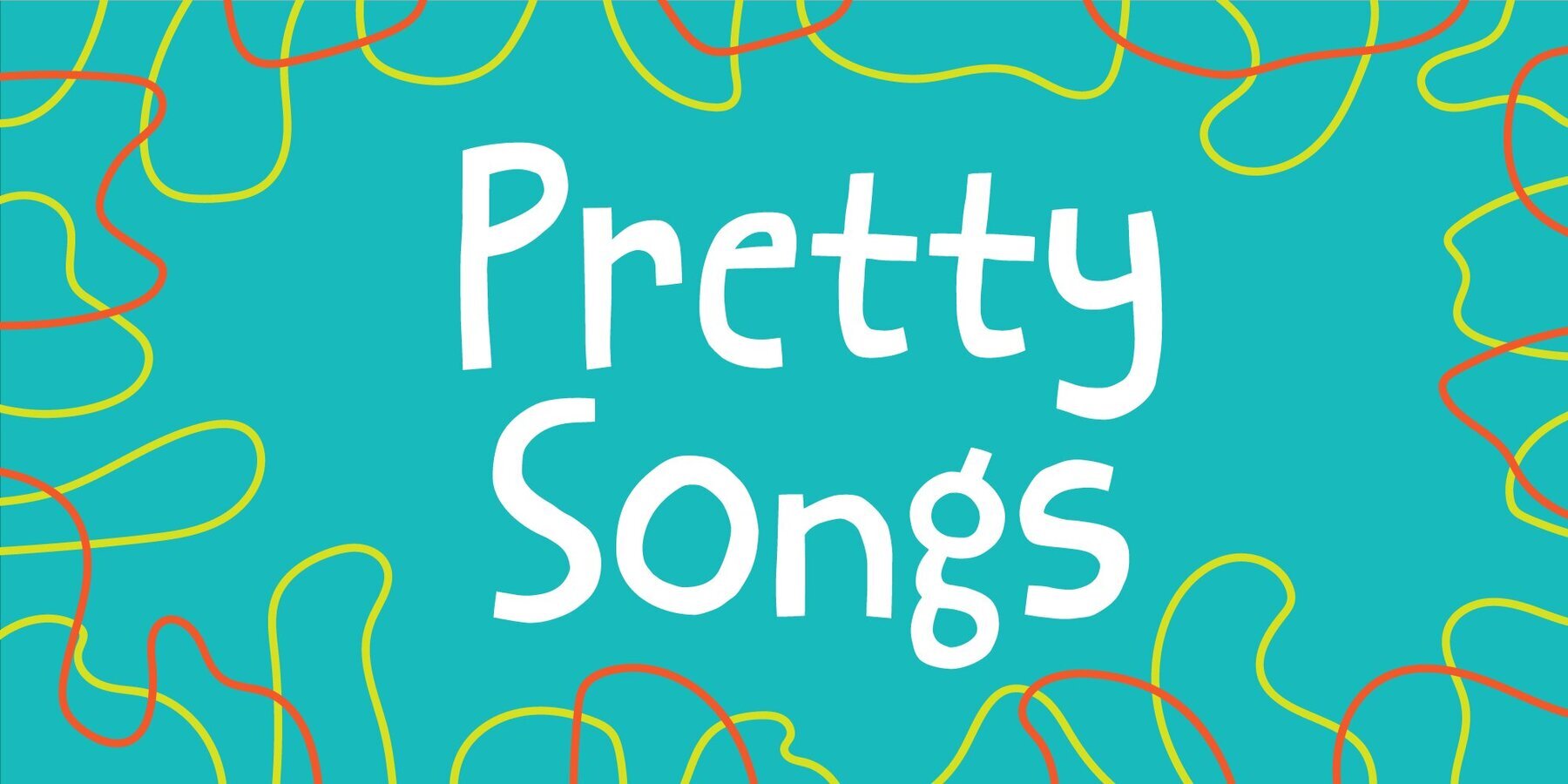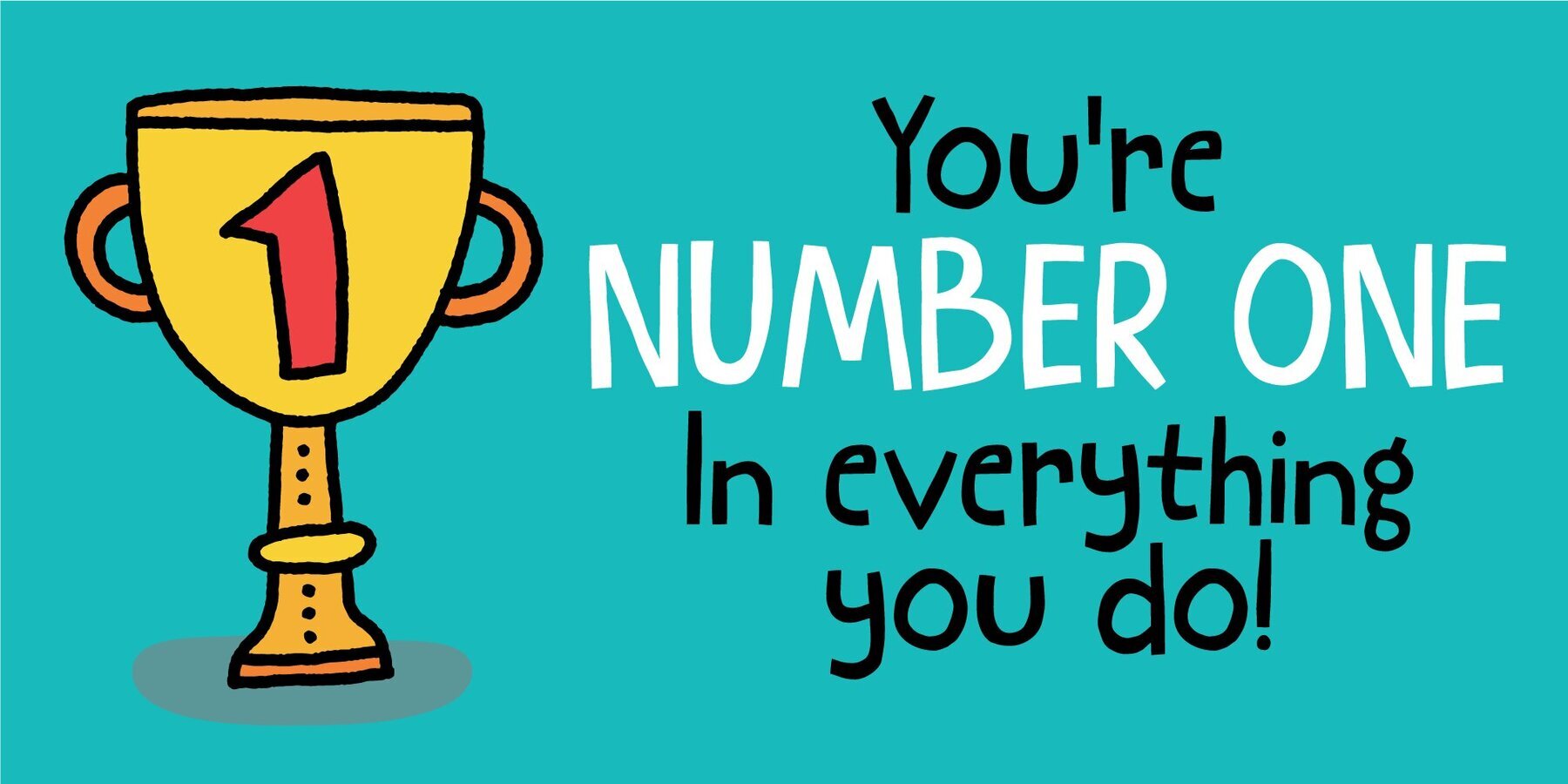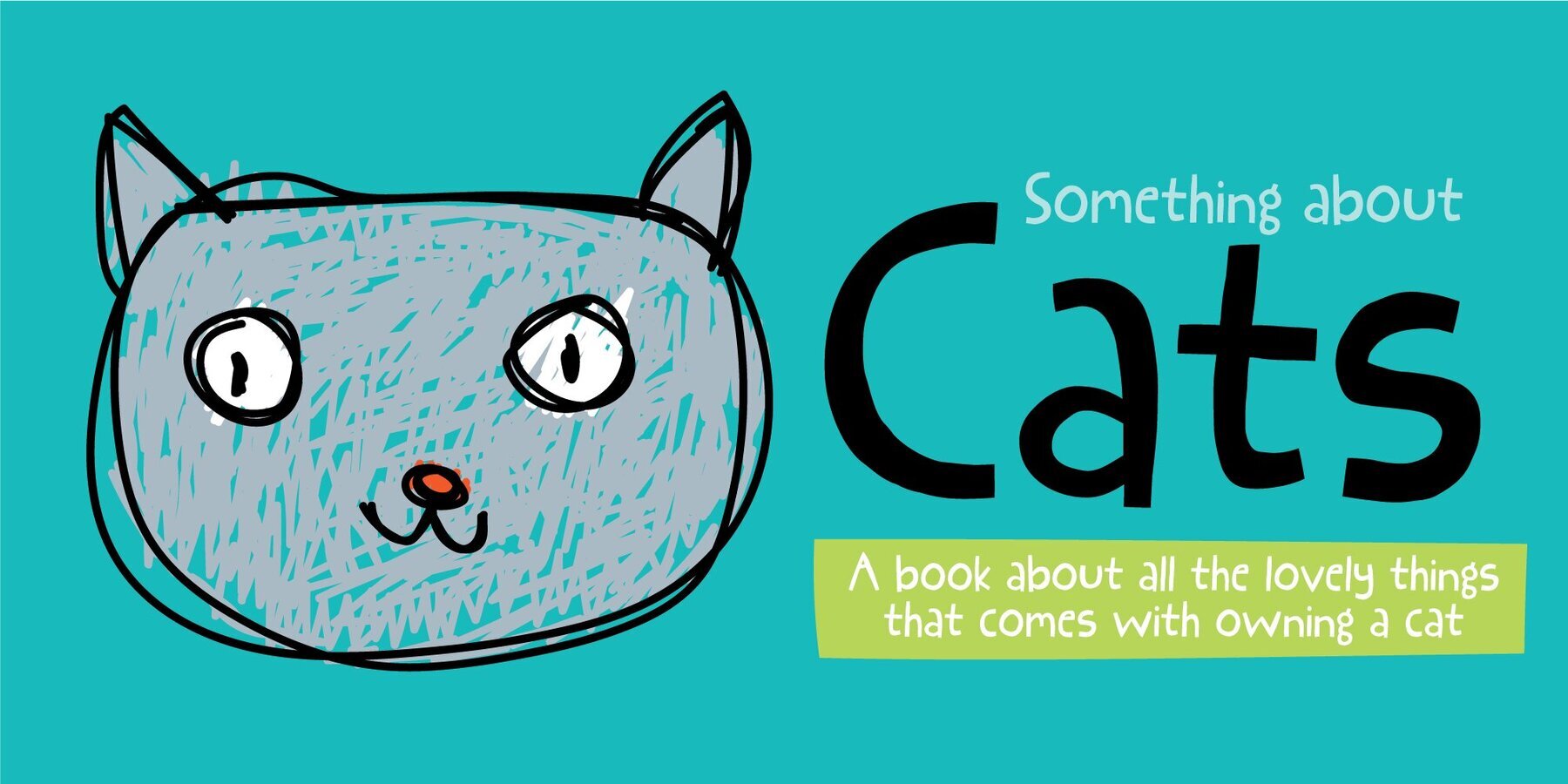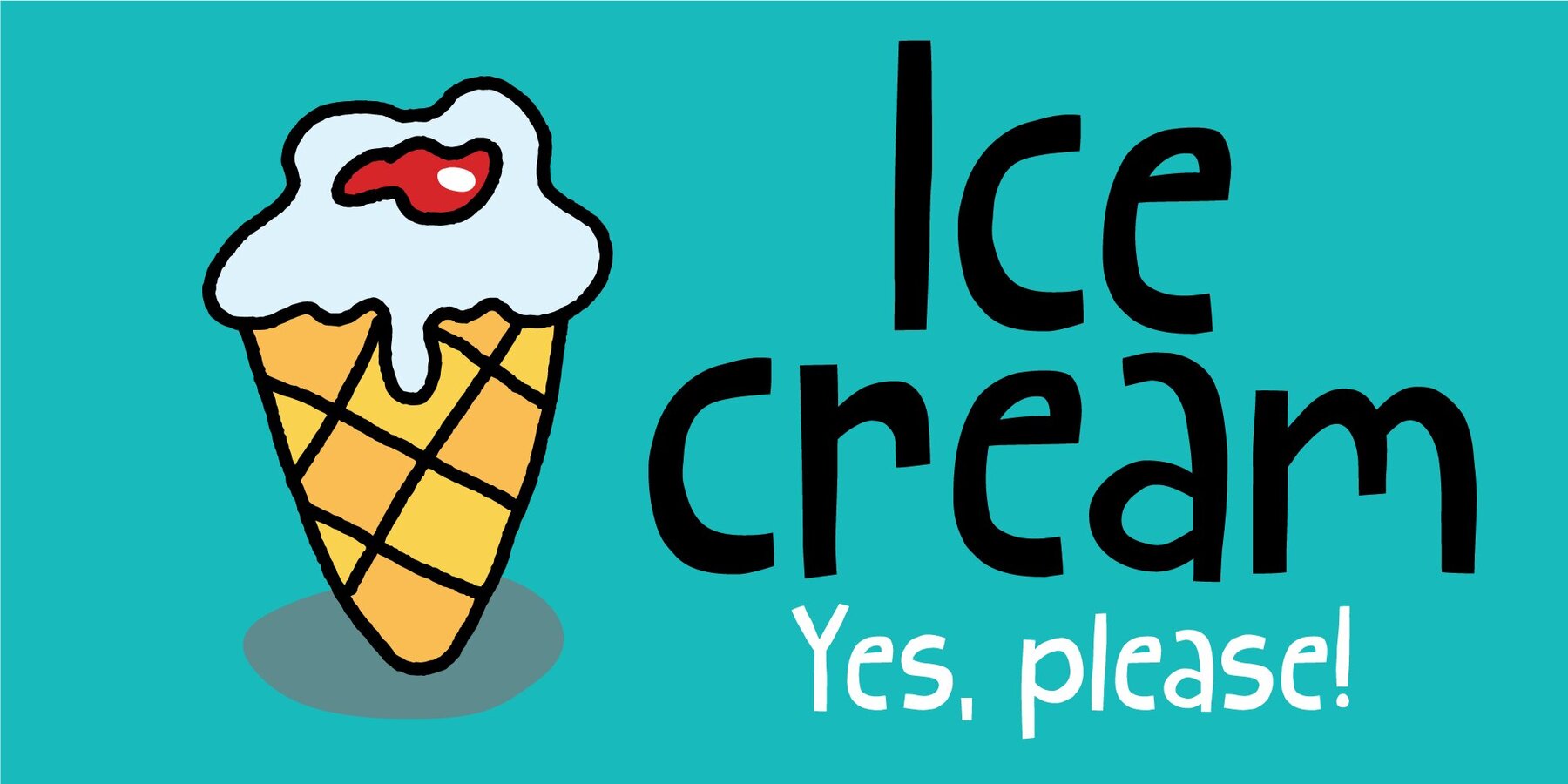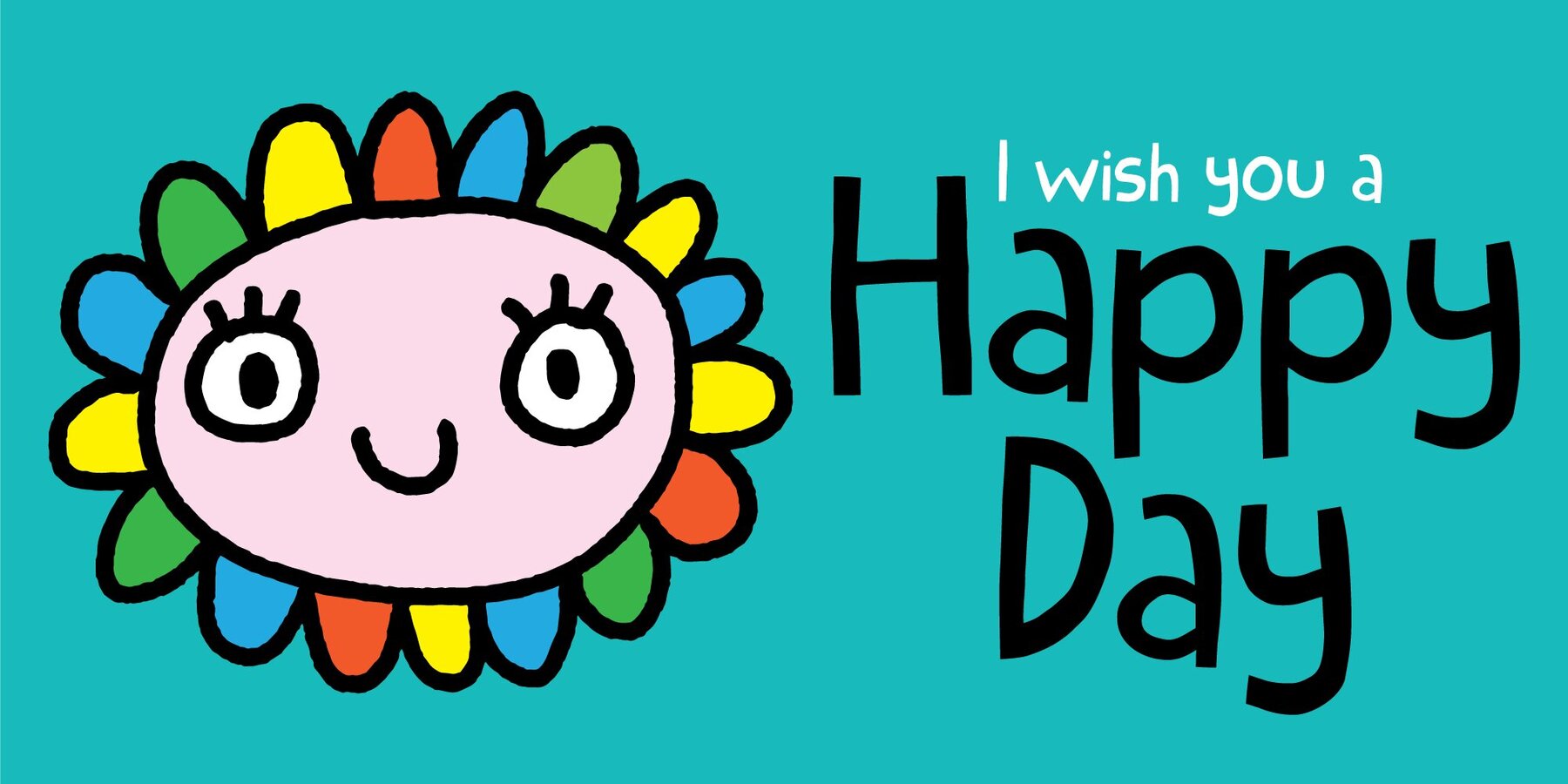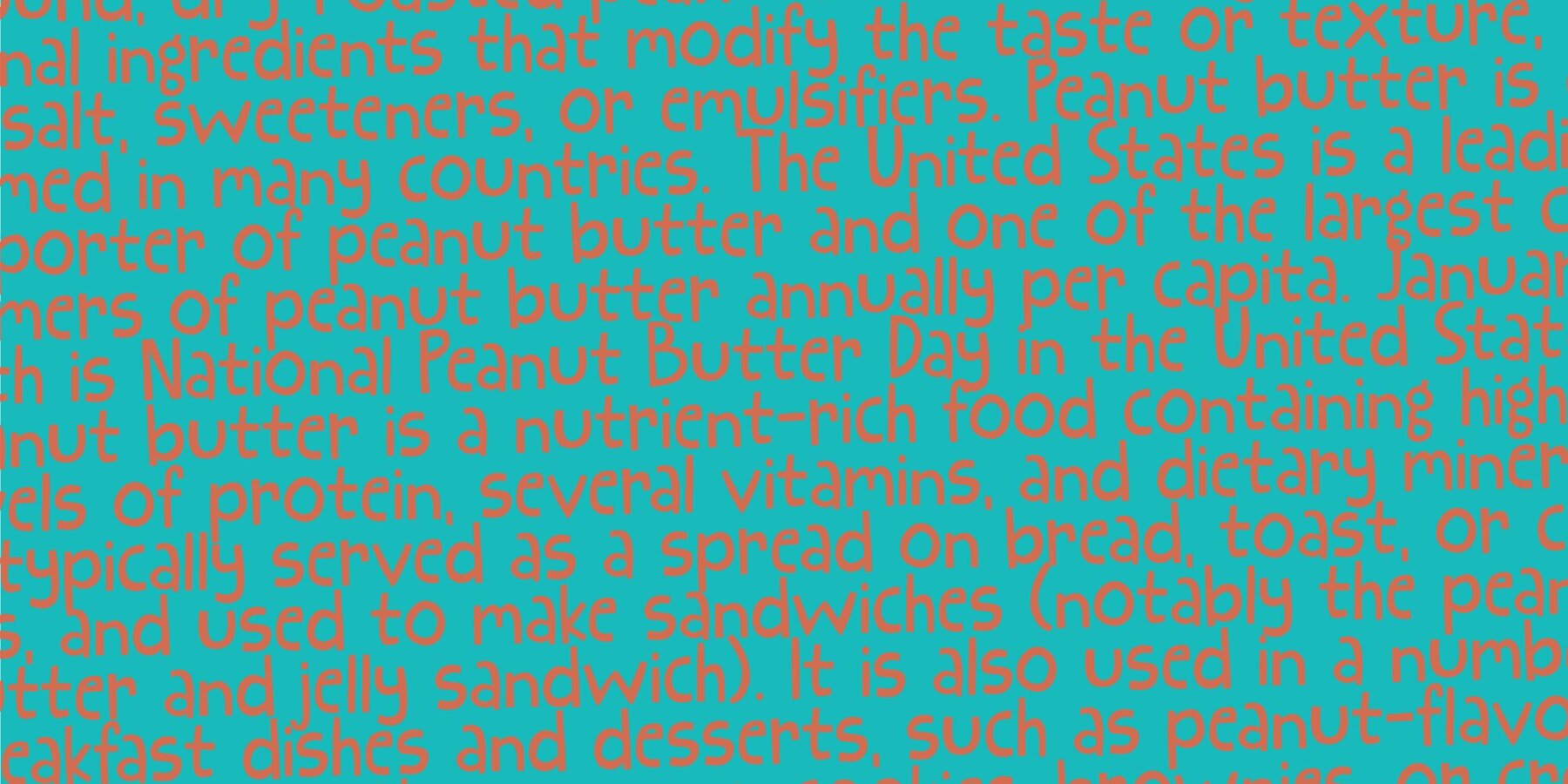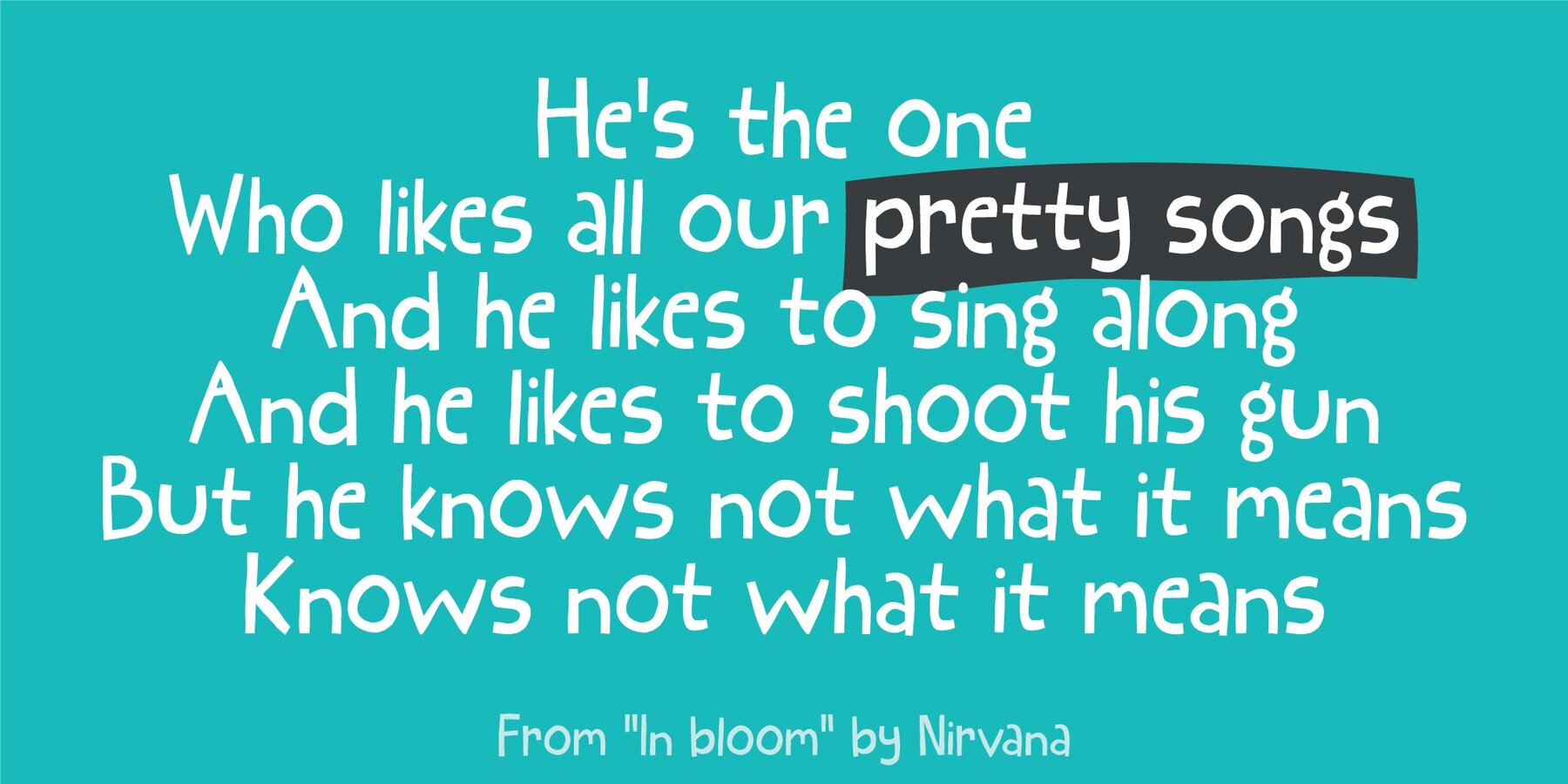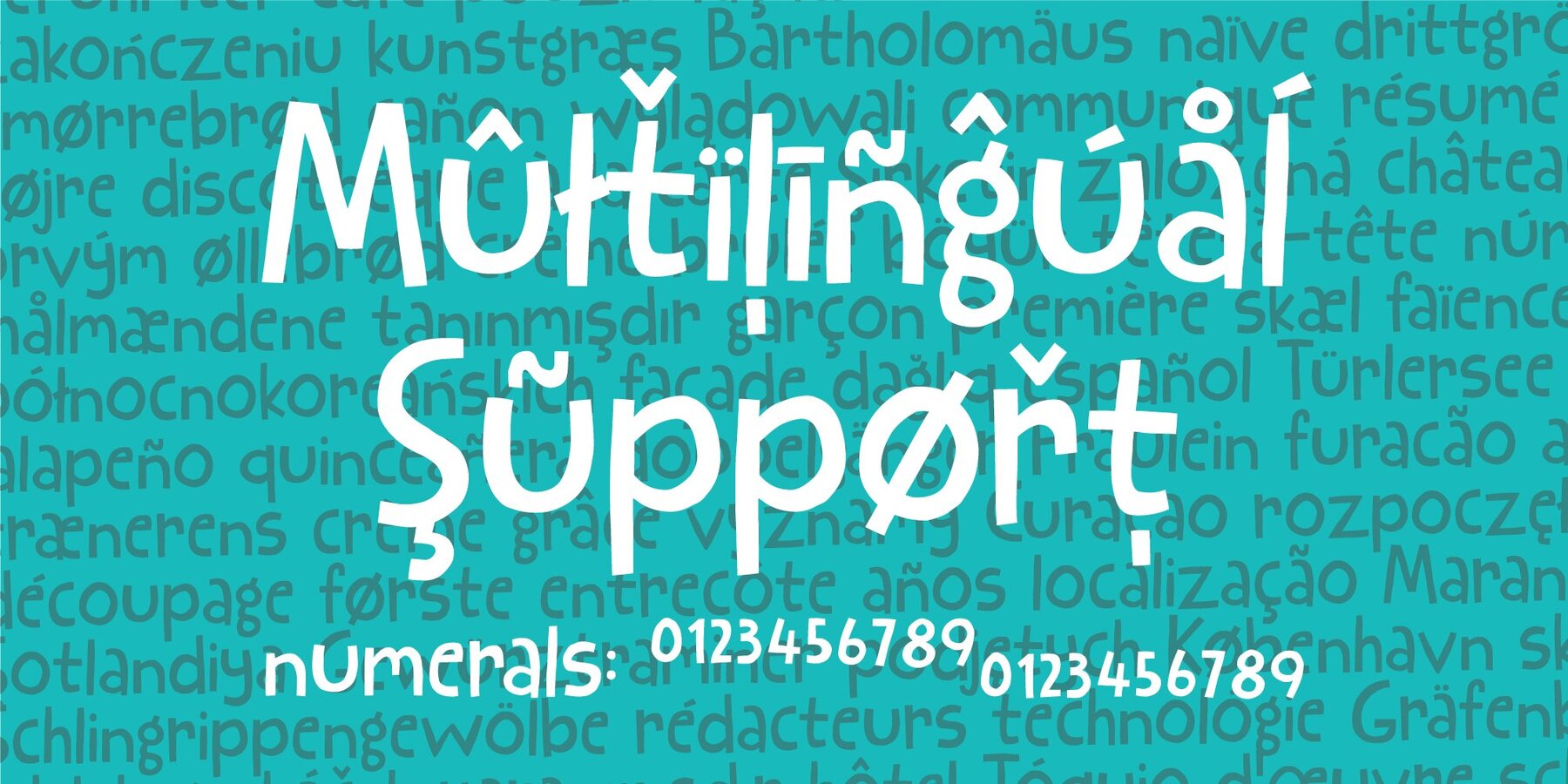
Pretty Songs Font
What exactly is a pretty song? To tell you the truth, I have no idea! My taste of music ranges from classical music to heavy metal, from hip hop to jazz - and even soundtracks like Flash Gordon, Merry X-mas Mr Lawrence and Tommy. But font-wise, I know what a Pretty Song is! It's this organic looking, handmade text font - suitable for many things, such as books for kids, organic products, posters ... whatever design that needs a fresh and jumpy boost! BTW, the names was inspired by another favourite artist, Nirvana!